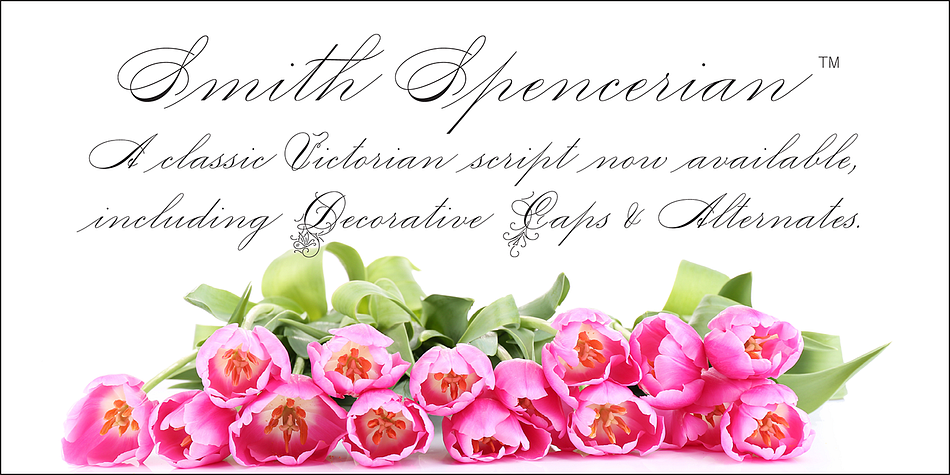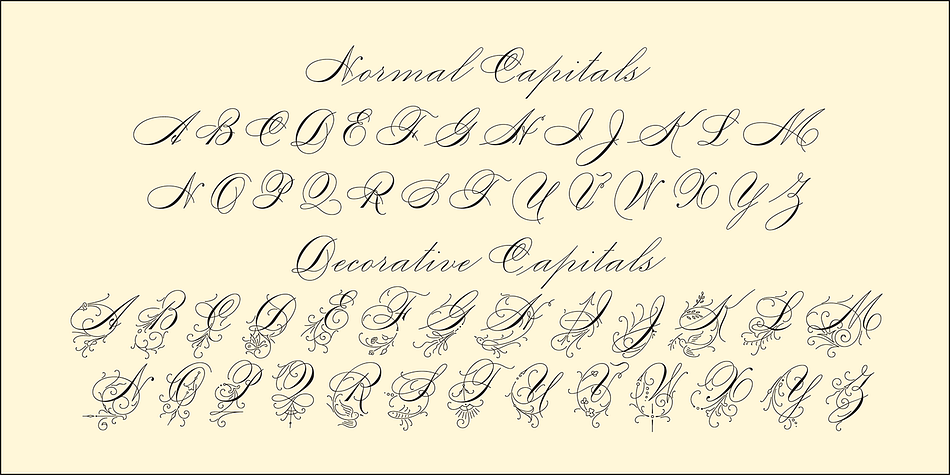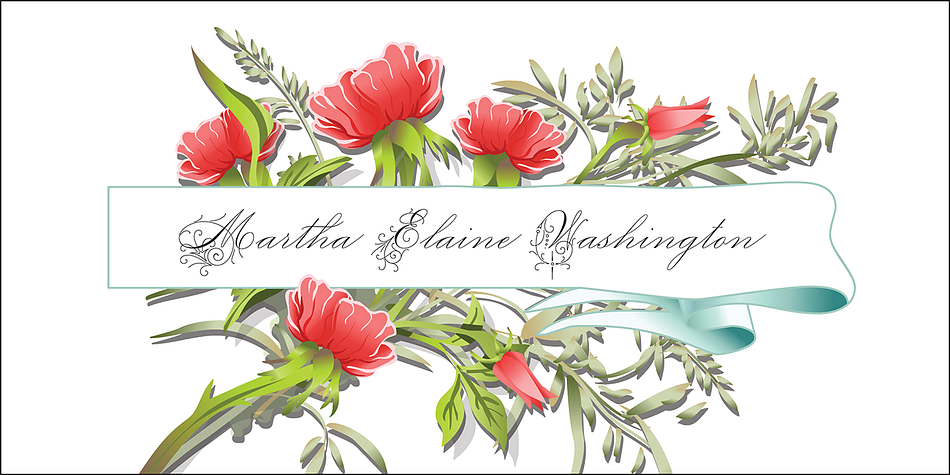
Smith Spencerian is a script font family. This typeface has two styles and was published by Liberty Type Foundry.
From 1878, this script by Richard Smith for MacKellar, Smiths & Jordan is possibly the most decorative Victorian script ever produced. It has been revived and updated for the modern print world by Liberty Type Foundry.
The fonts were designed with fine social typography in mind. Except for optical compensation differences, both fonts are identical in their OpenType feature sets. Both fonts contain identical discretionary ligatures, alternate character designs and stylistic variations which will enable the user to produce a variety of fine typography.
Smith Spencerian is best suited for print use.